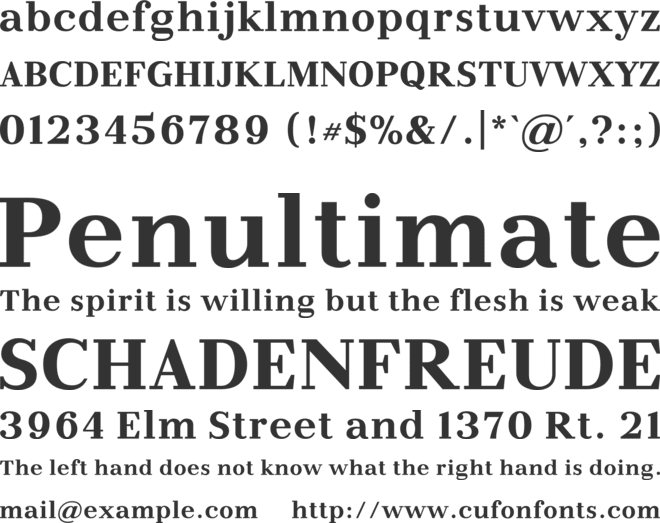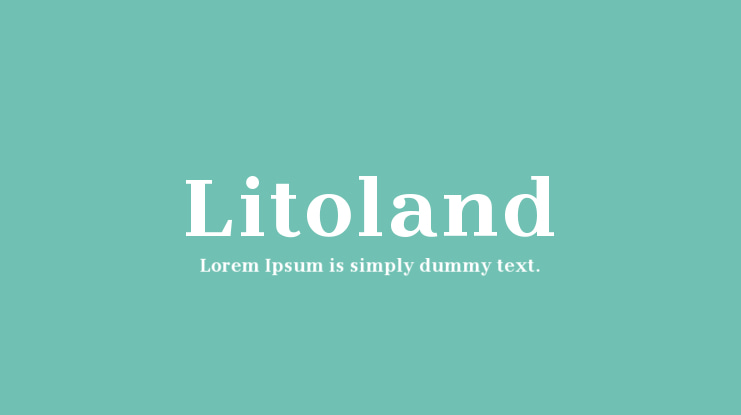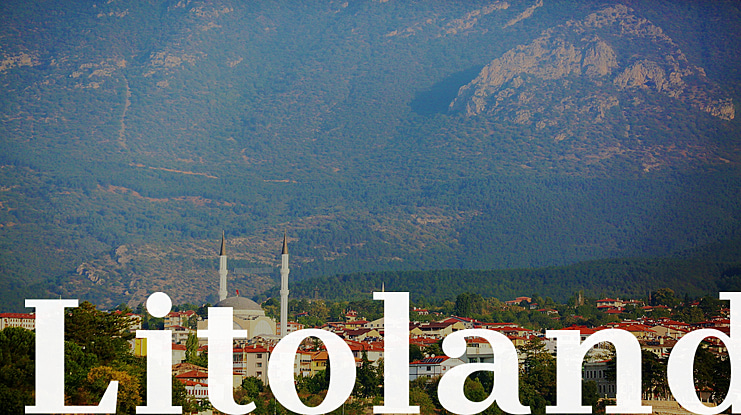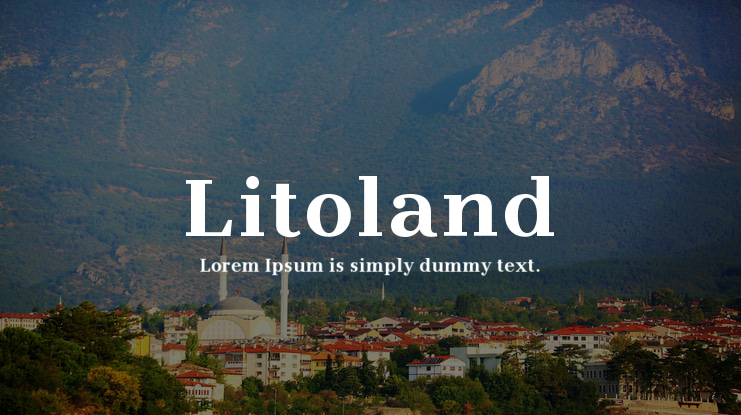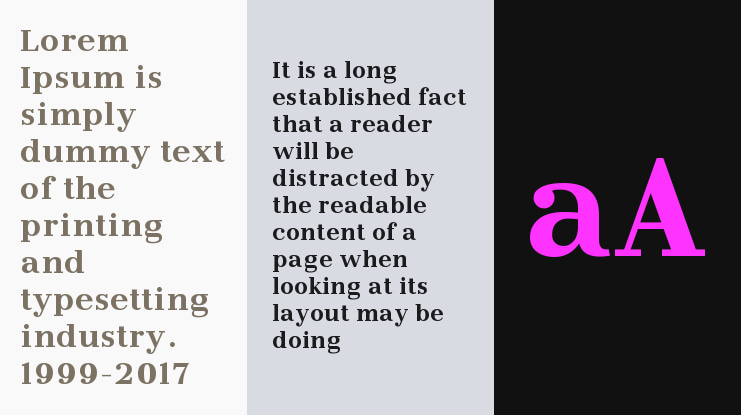
Litoland Font Family
The fonts contain 7 sets of stylistic characters (swashed letters, curles, alternatives). Use Character Map or any sotfware that supports OpenType Features to get them!